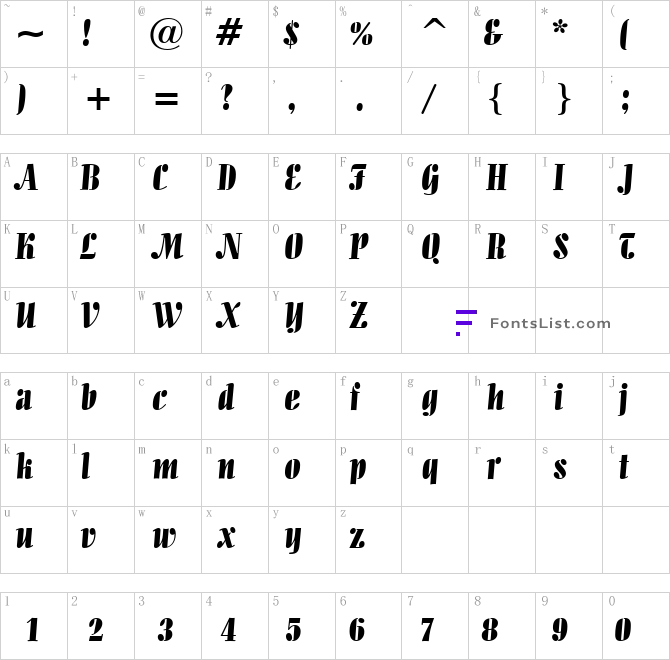
- Font Name:Allegro BT
Allegro-BT.ttf is a very beautiful artistic font, Allegro-BT.ttf is widely used in the design and printing of various books and pictures,Allegro-BT.ttf has a strong visual impact,Allegro-BT.ttf is a commonly used font in newspapers, magazines and books, and is used in posters, e-commerce Poster design, store design, logo design, font design and other fields.Allegro-BT.